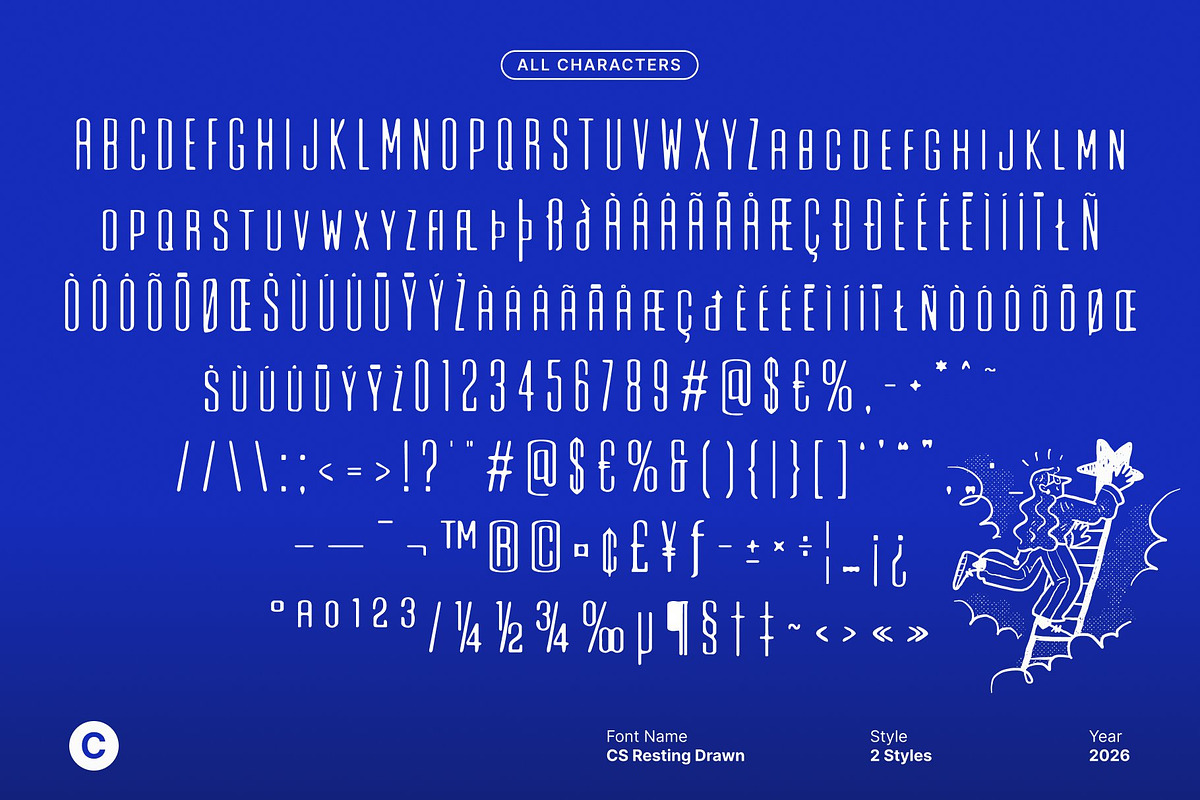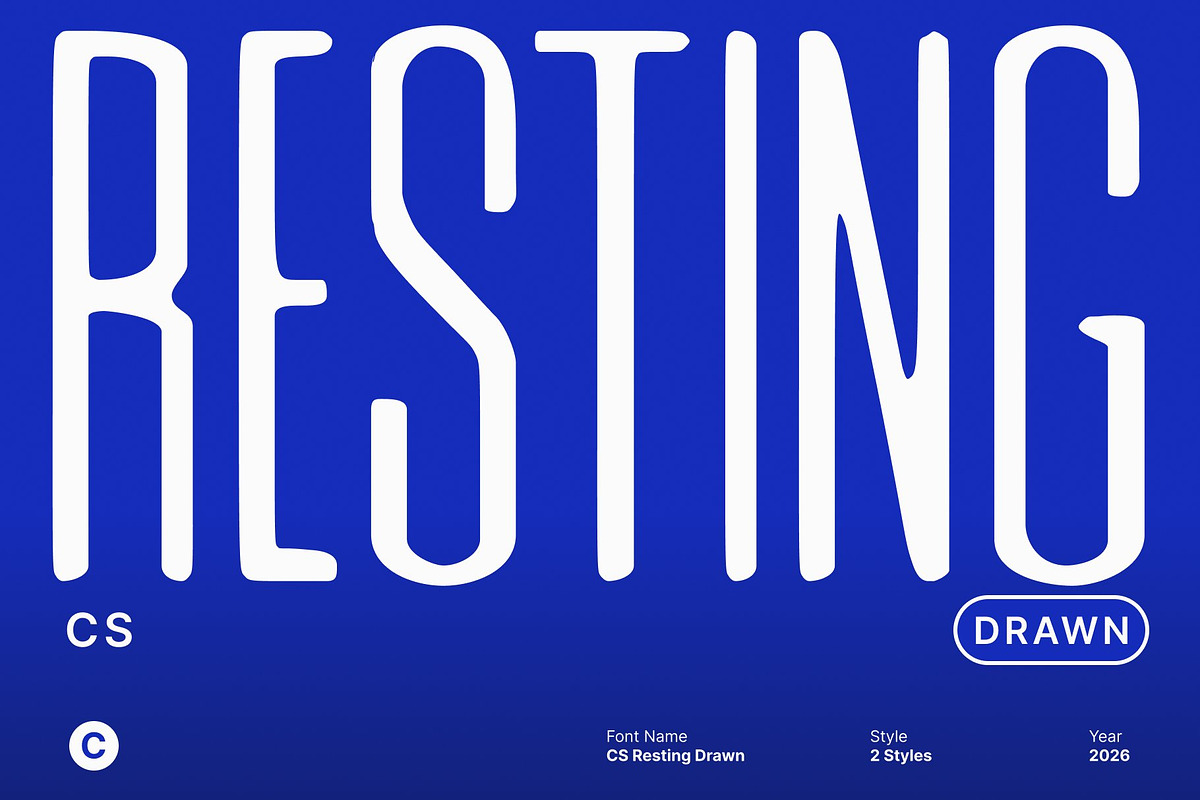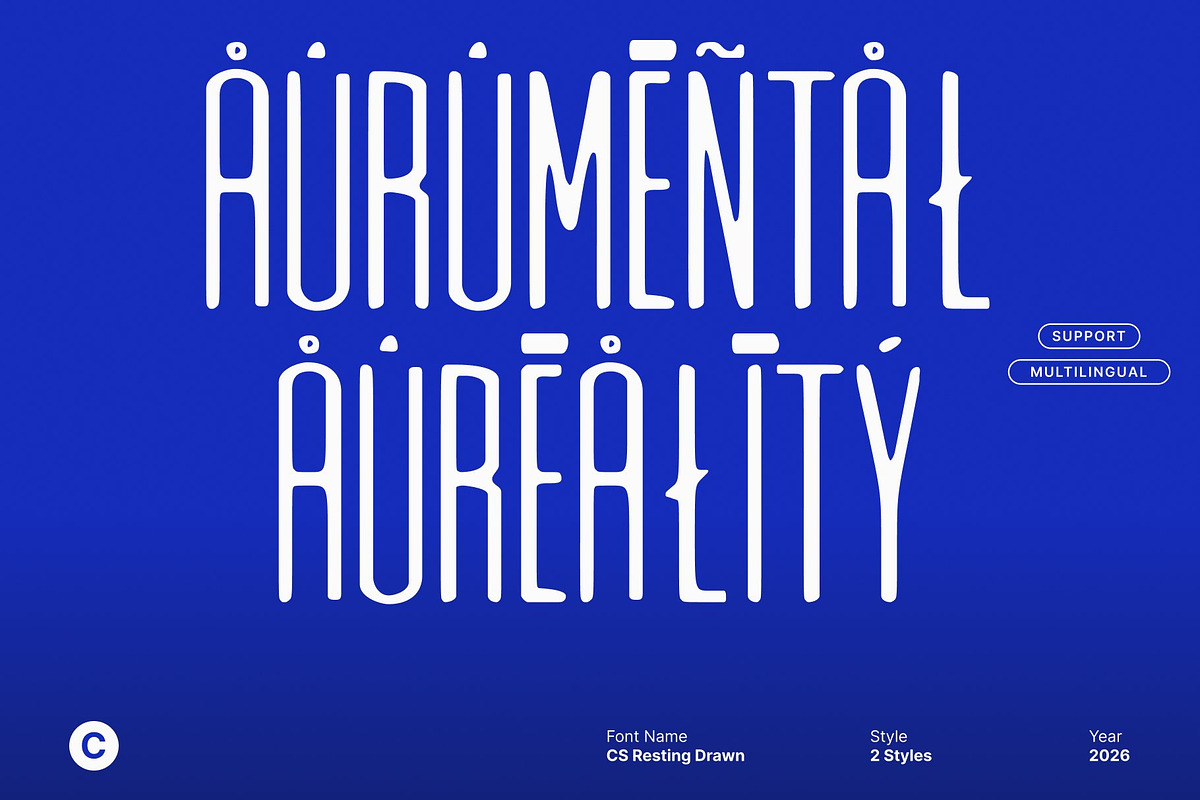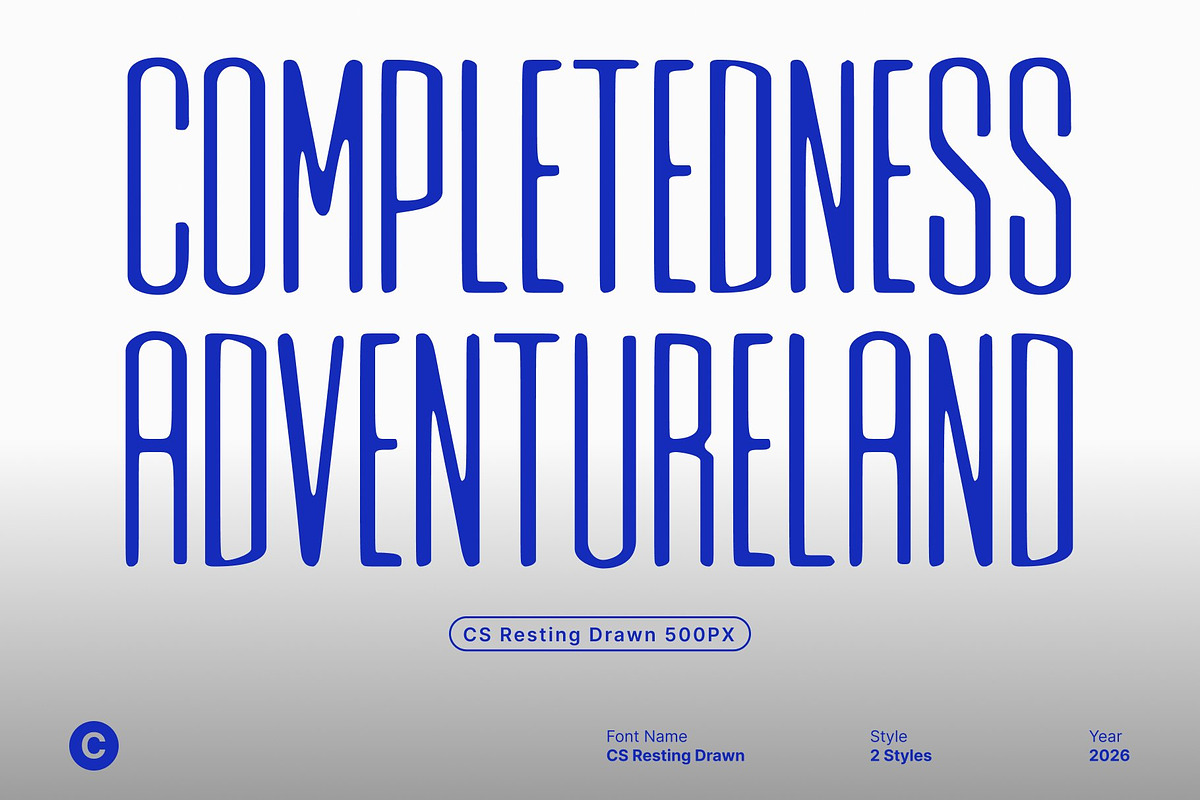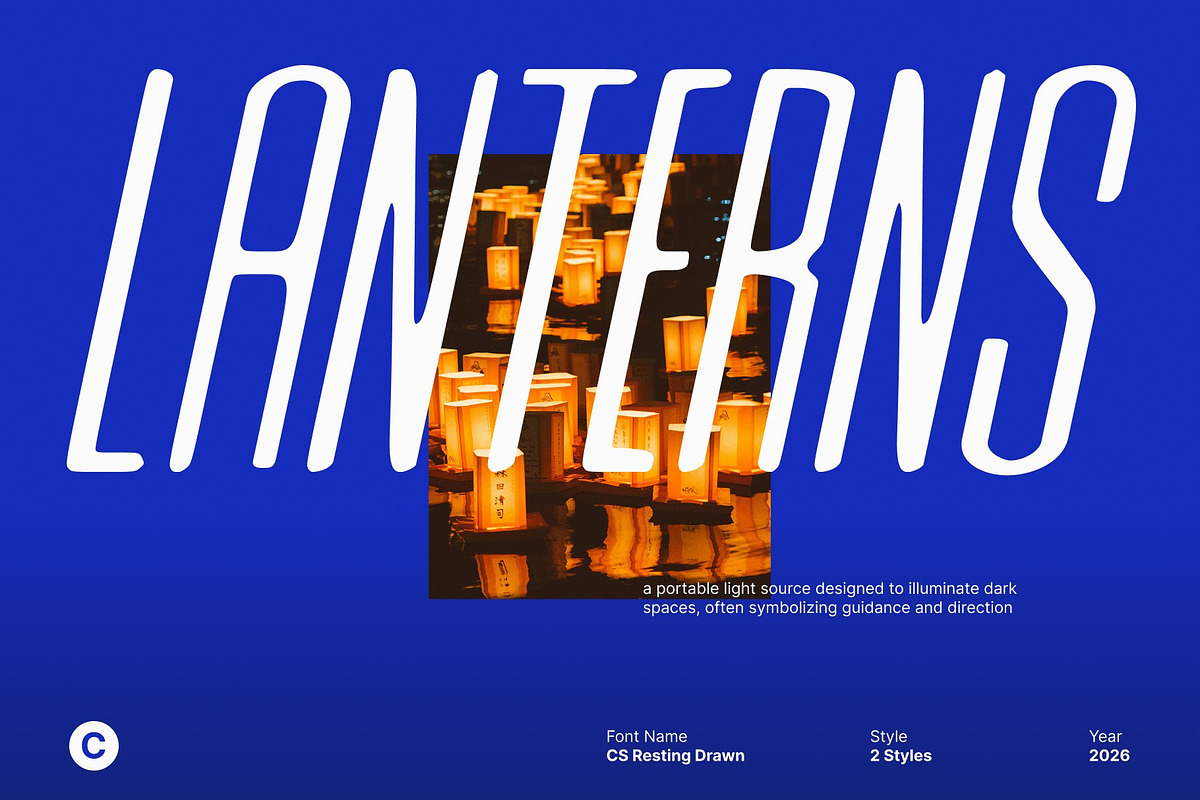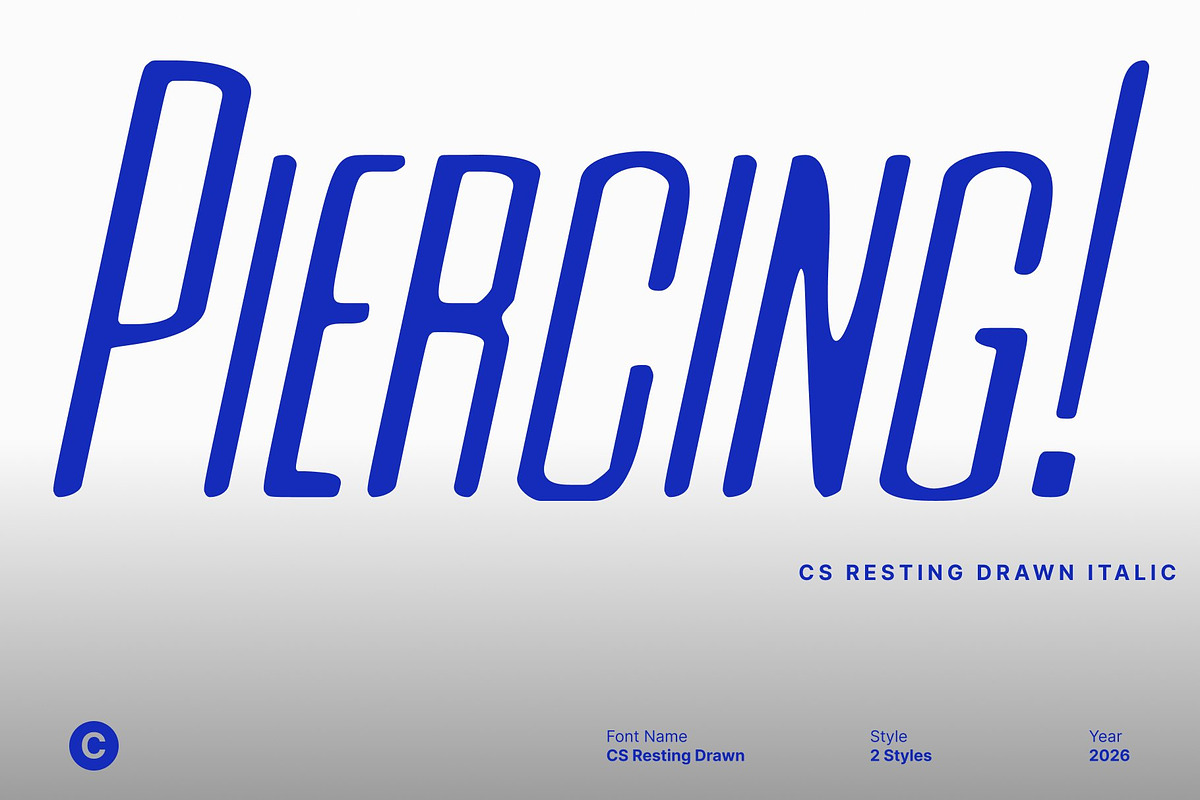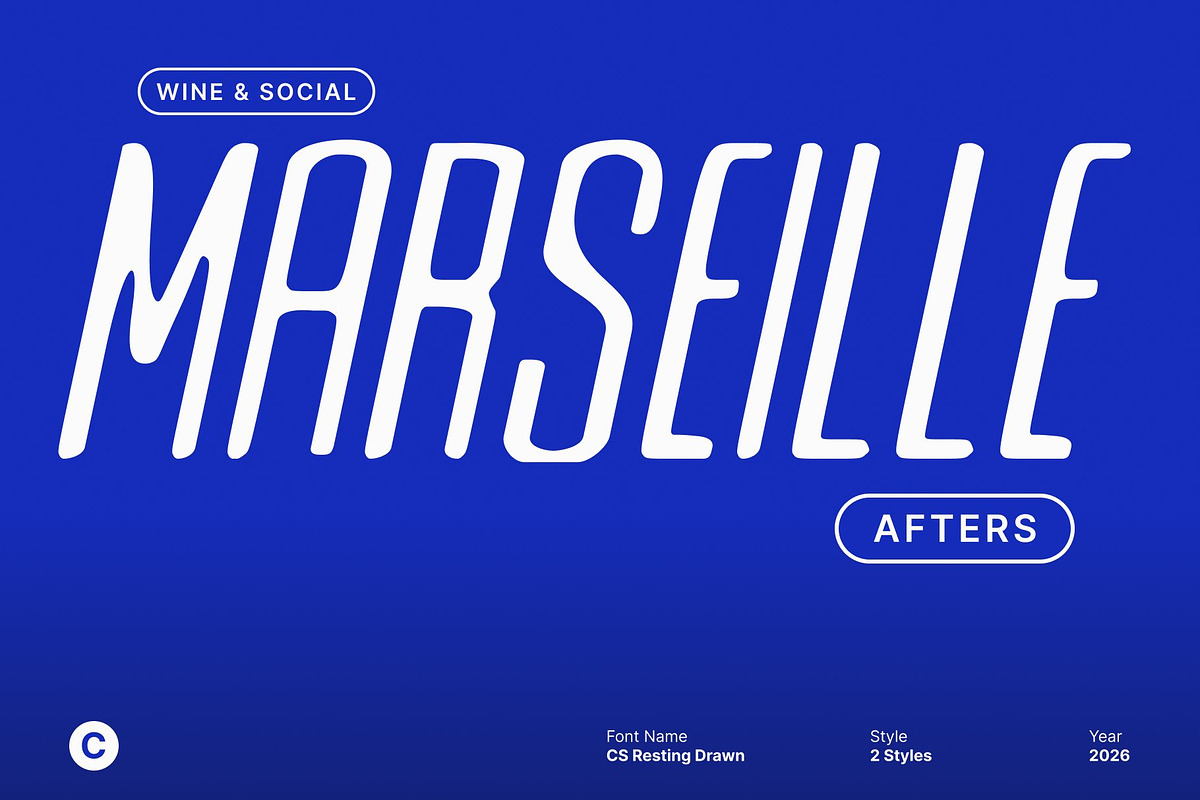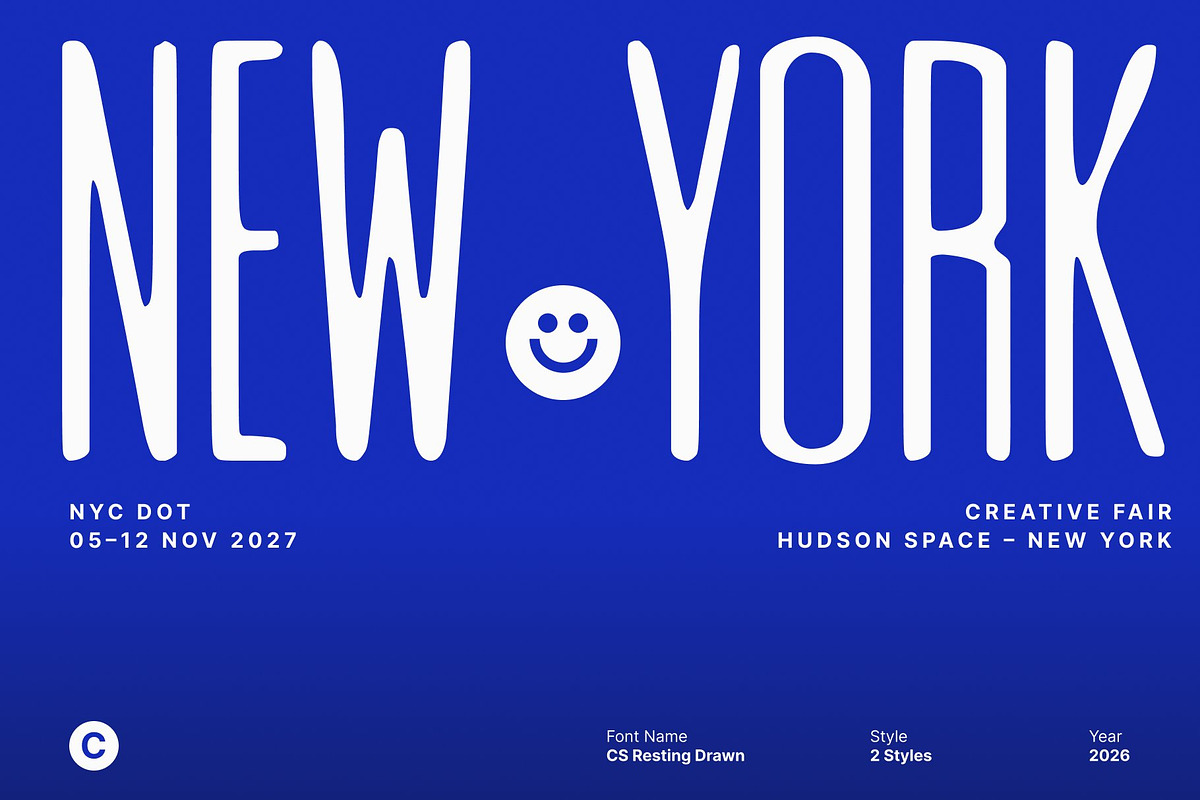
CS Resting Drawn
CS Resting Drawn – Condensed Sans Serif: Compact Strength with Modern Appeal
Modern Condensed Sans Serif for High-Impact Typography This is a modern condensed sans serif font built for confident expression in limited space. Its narrow proportions and clean structure create a strong visual presence, making it ideal for designs that demand clarity, efficiency, and contemporary style.
Powerful Readability in Tight Layouts Designed to perform in compact compositions, this font maintains excellent legibility despite its condensed form. Balanced letter spacing and consistent stroke weight ensure smooth reading, whether used for headlines, posters, or digital interfaces.
Sleek Minimalism with Drawn Texture Character The font’s minimalist construction is enhanced by subtle drawn details that introduce warmth and personality. This handcrafted nuance softens its modern rigidity, giving the typeface a distinctive edge while preserving a professional, clean appearance.
Perfect for Headlines, Editorials, and Branding This font excels in branding, editorial layouts, advertising, and digital campaigns where space efficiency and visual impact are essential. Its condensed strength and modern appeal make it a reliable choice for designers who want bold communication with refined character.